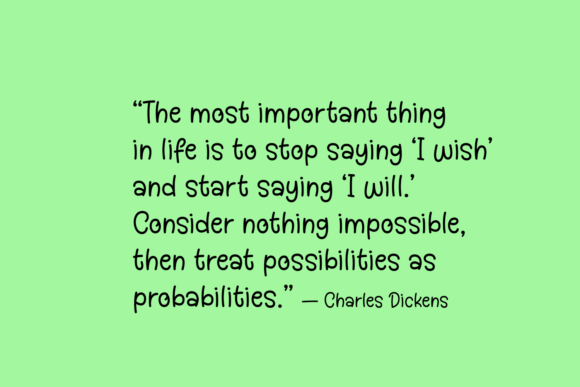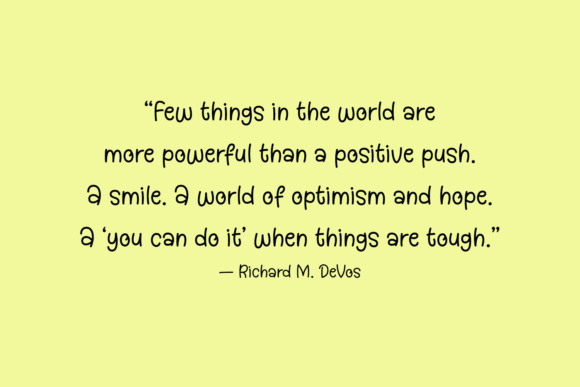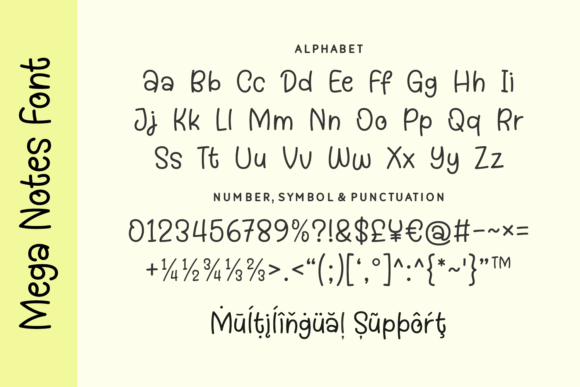
Introduction to Mega Notes Font Font
Fonts play a crucial role in design, and the Mega Notes Font font is a typeface that brings both character and versatility to any project. Whether you’re working on a branding project, a website, or a print design, the Mega Notes Font font offers a unique style that can elevate your work.
Mega Notes is a playful, rounded handwritten typeface that brings a fun and lively energy to any design.
Its bold, rounded characters and informal style make it perfect for projects that aim to capture a sense of creativity, spontaneity, and approachability Mega Notes can be used in a wide variety of settings, from classroom projects to informal branding, DIY designs, or digital projects.
Key Features of Mega Notes Font Font
• ✅ High-quality typeface designed for professional use
• ✅ Includes a wide range of glyphs and characters
• ✅ Ideal for logos, branding, websites, and print
Why Choose Mega Notes Font Font?
The Mega Notes Font font is more than just a typeface – it’s a design tool that helps you communicate your message with style and clarity. Its unique character set and versatile design make it suitable for a wide range of applications, from elegant invitations to bold headlines.
With its carefully crafted letterforms and balanced proportions, the Mega Notes Font font ensures readability and visual appeal across all mediums.
What makes Mega Notes Font font special?
The Mega Notes Font font stands out with its unique design, exceptional readability, and versatility across various design applications.